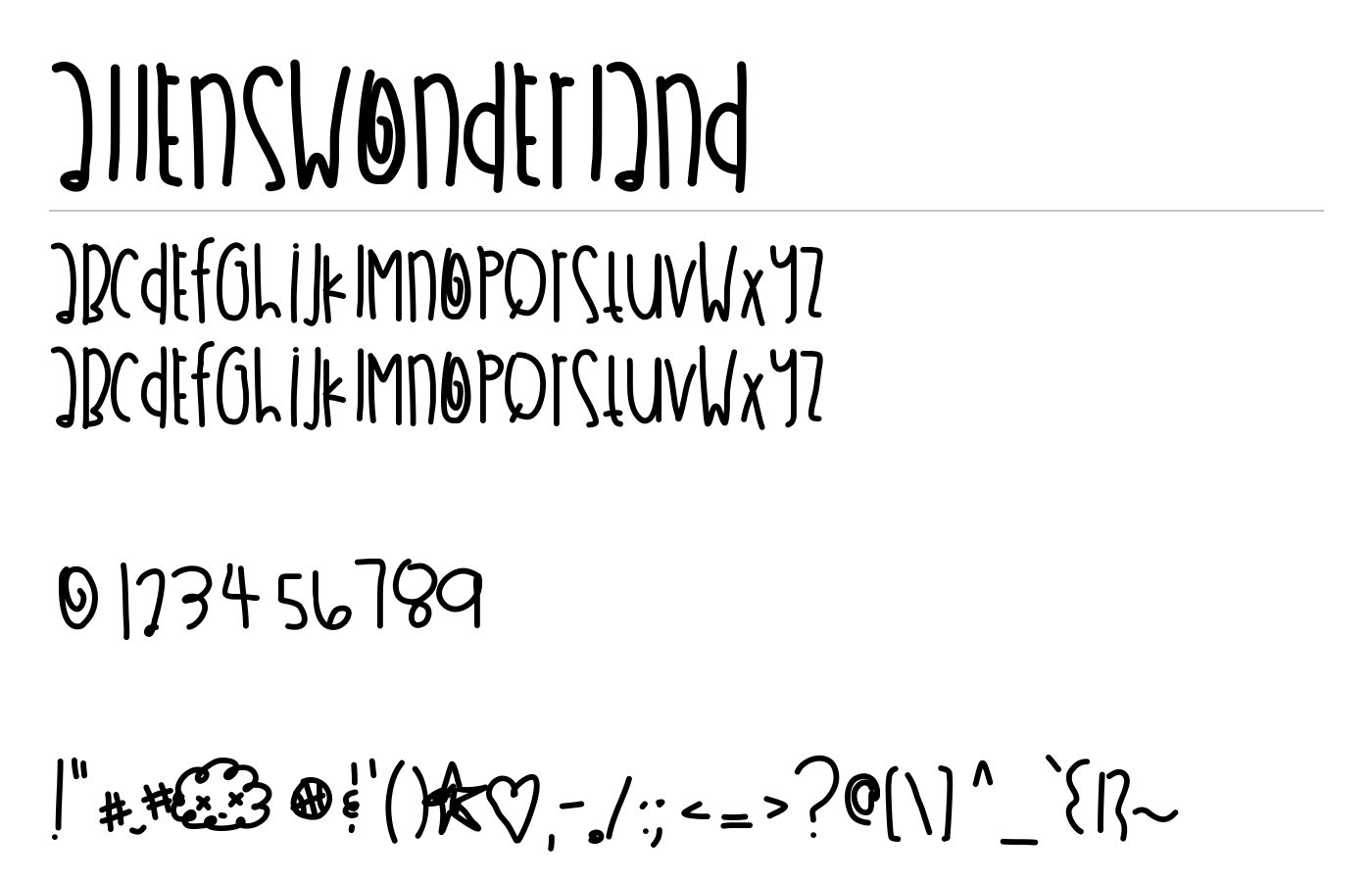
AllensWonderland is a playful and quirky handwritten sans serif font with tall, narrow letterforms and a casual, uneven stroke style that gives it a whimsical, childlike charm. Its lightweight, slightly irregular characters and unique decorative details make it perfect for creative projects, kids’ branding, or fun, informal designs where a friendly and imaginative tone is desired. This font works well for headlines, logos, or any context that benefits from a lively and approachable personality.
AllensWonderland Font
About AllensWonderland Font